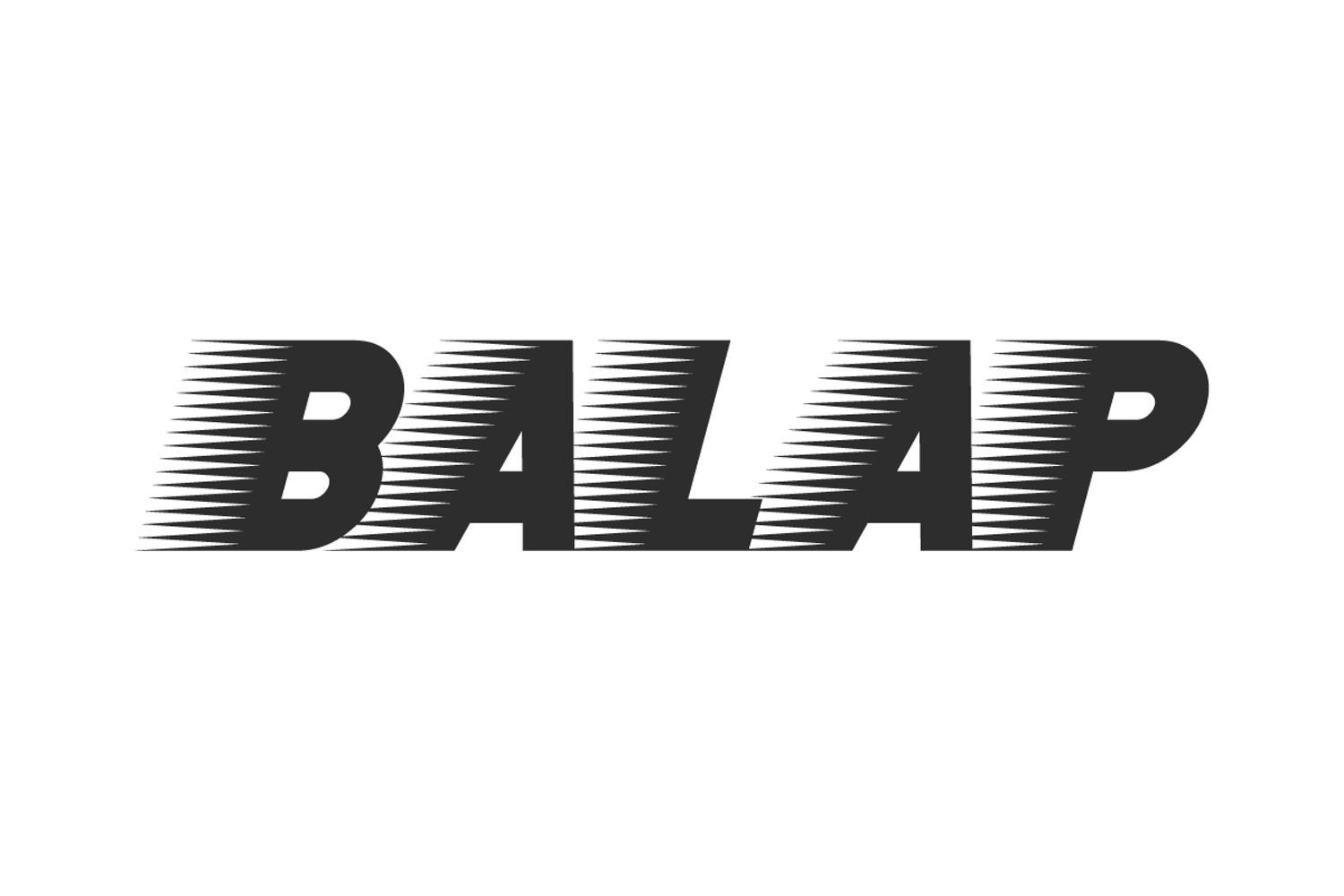
Balap Font is a crisp speed display font with a unique shape of strip lines representing the theme of the racing font. Specially crafted with bold action style and modern feel to make your designs more memorable and stand out. Great for adding sports themed style and overview. This font is for accessories and merchandise, advertisement, automotive repair shop, game, graphic design, motorbike, race, sports, and so on.
Balap Font includes full set of ALL CAPS for Uppercase and Lowercase Basic Characters, Numbers, Punctuation, and Symbols. This letter embodies the essence of speed and adrenaline-pumping style, making it the perfect choice for banners, blogs, brochures, covers, headlines, posters, stationery, stickers, websites, and more. Get ready to speed up your visual branding with automotive-themed fonts.